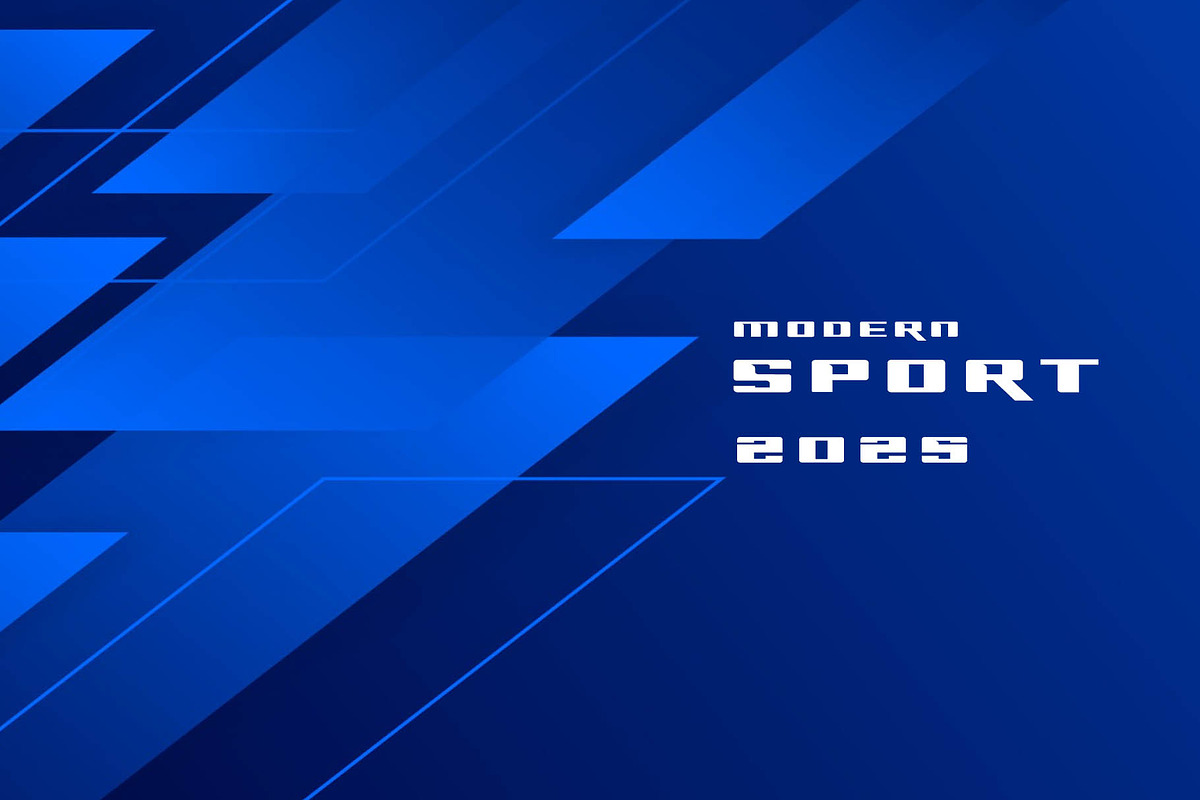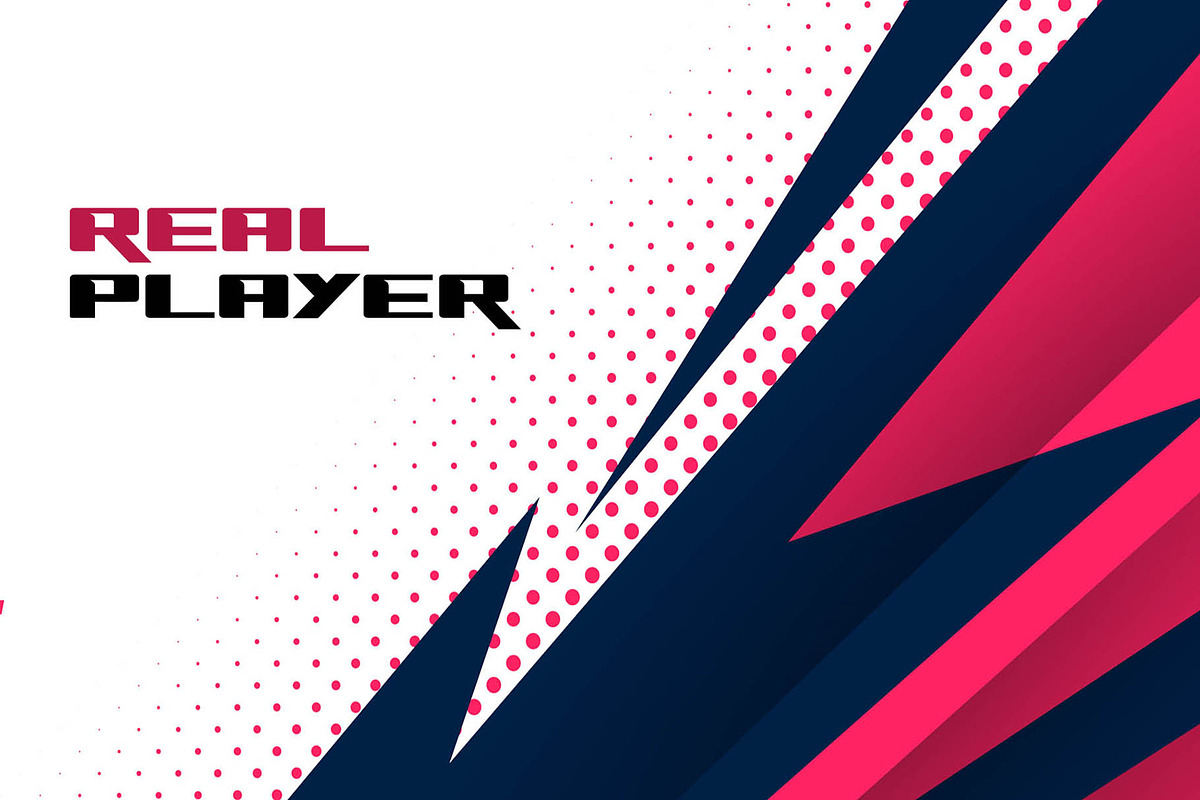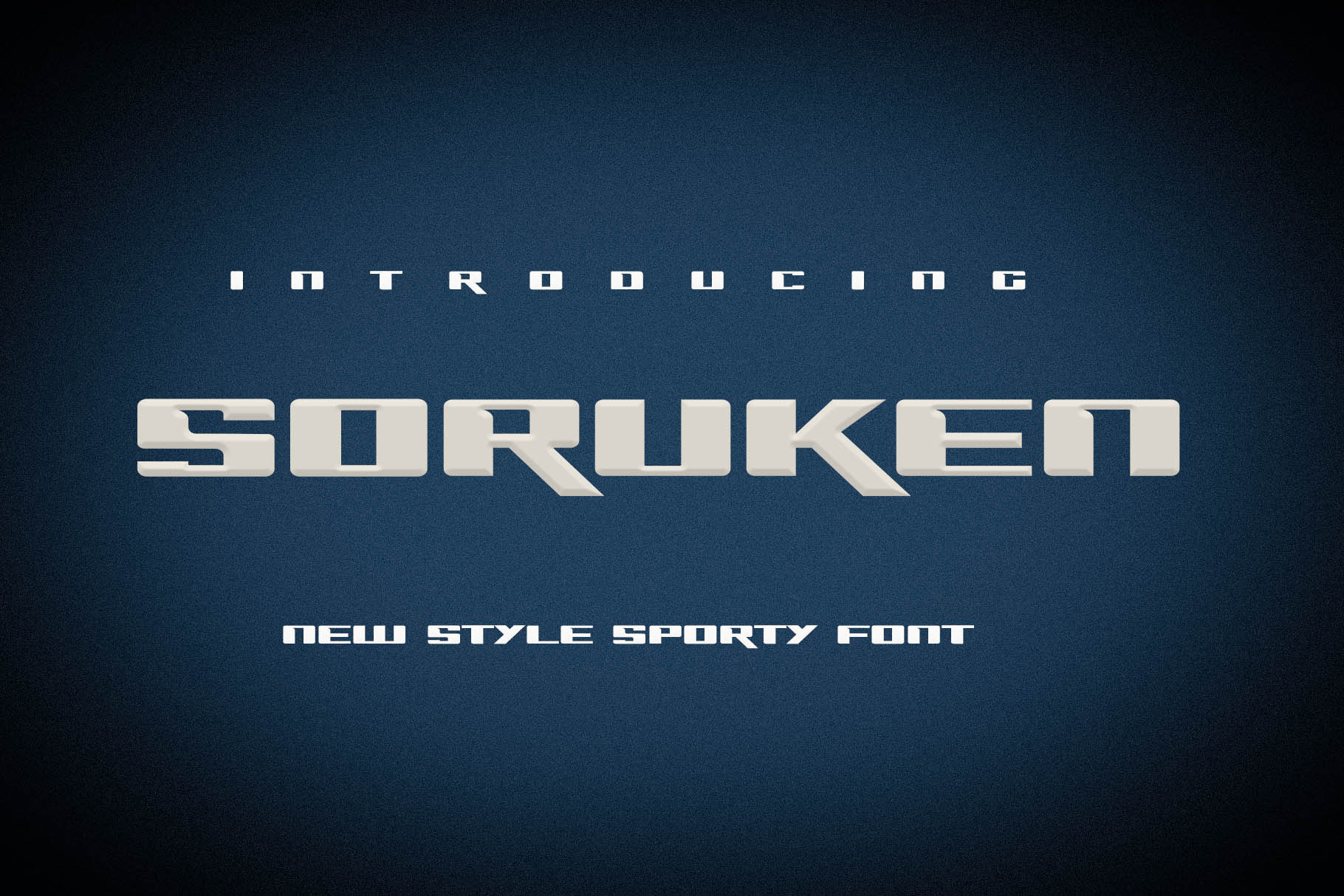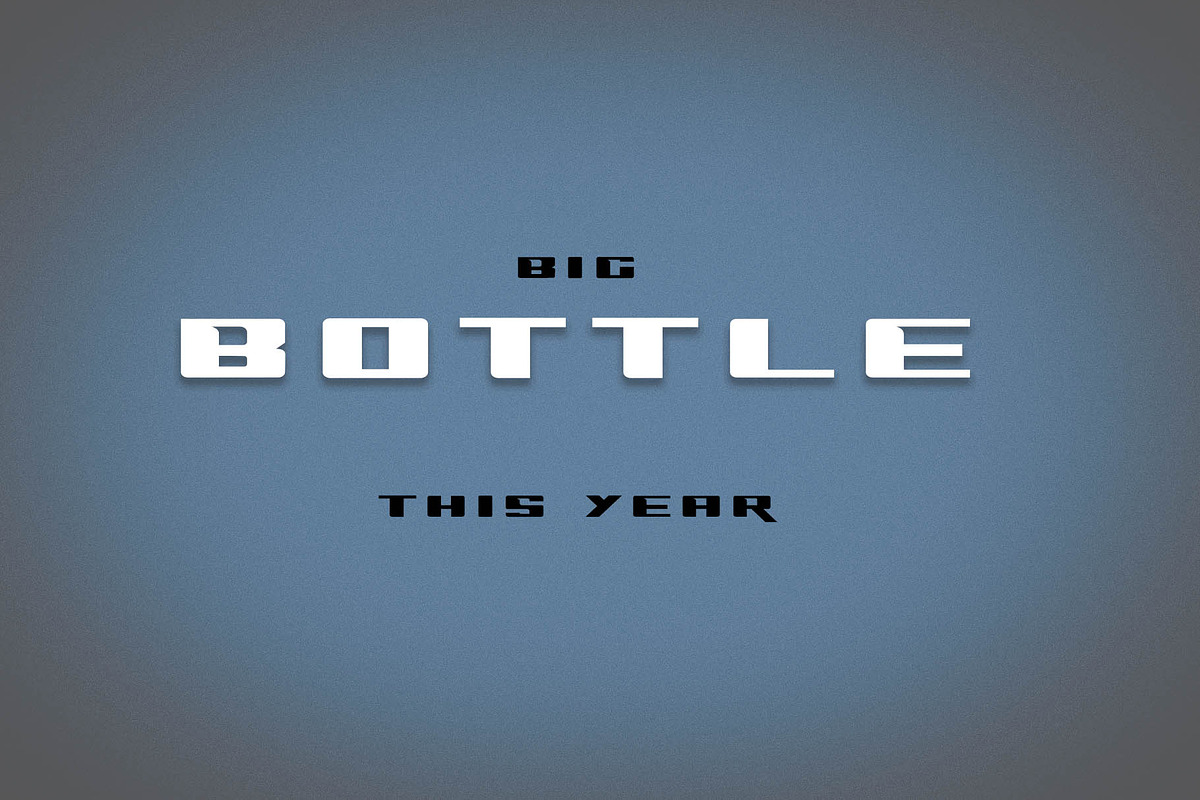
Soruken - Sport Font
Introducing Soruken, a New style and bold for Sporty Font. So perfect for you who needs a typeface for logo designs, magazine, social media, brochure, and many more.